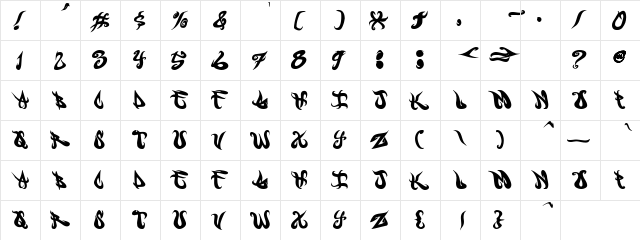
NIRVANA Medium
Design Context for NIRVANA Typeface
NIRVANA is a composed and adaptable typeface that performs quietly and consistently across a wide range of design contexts.